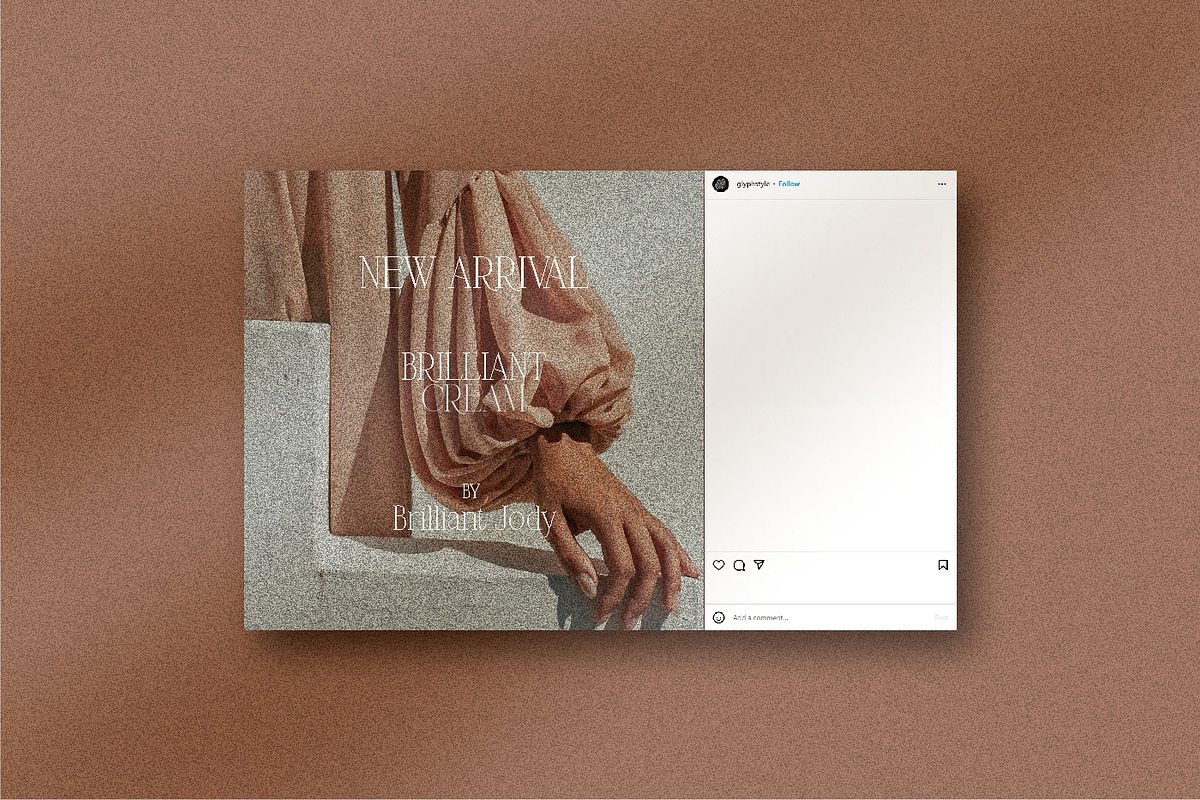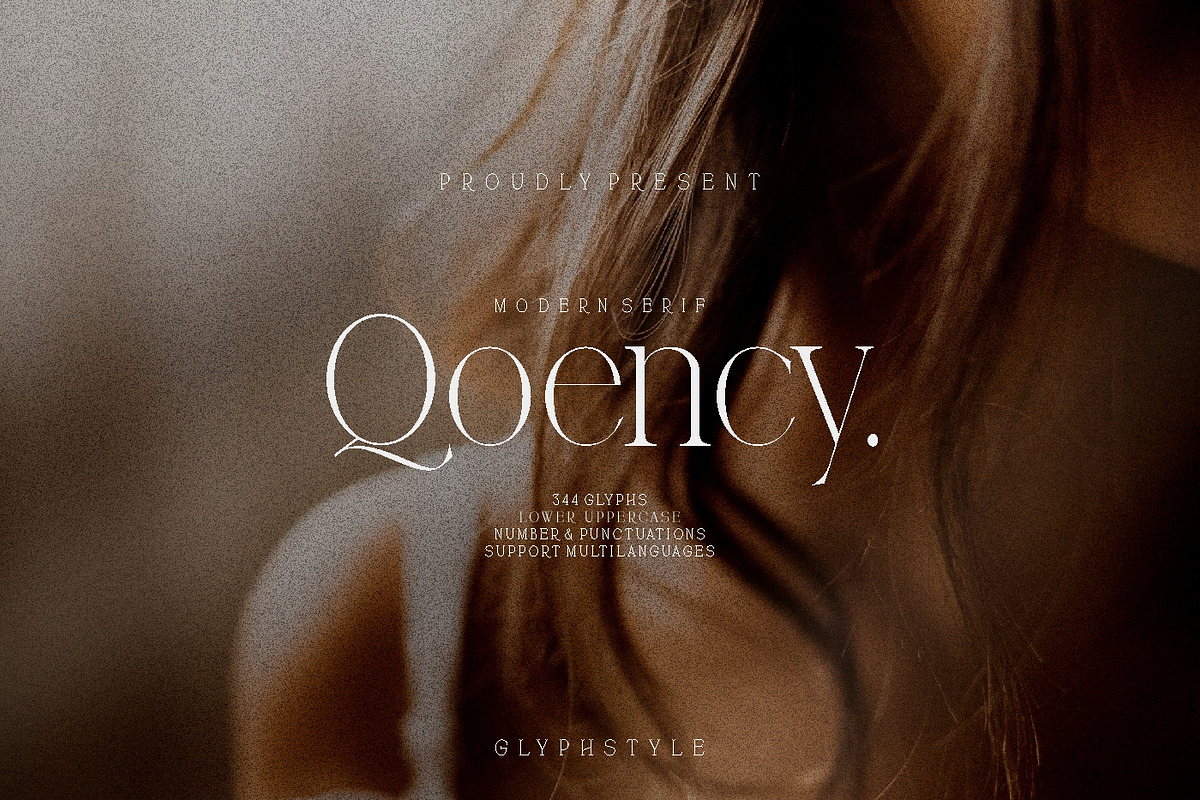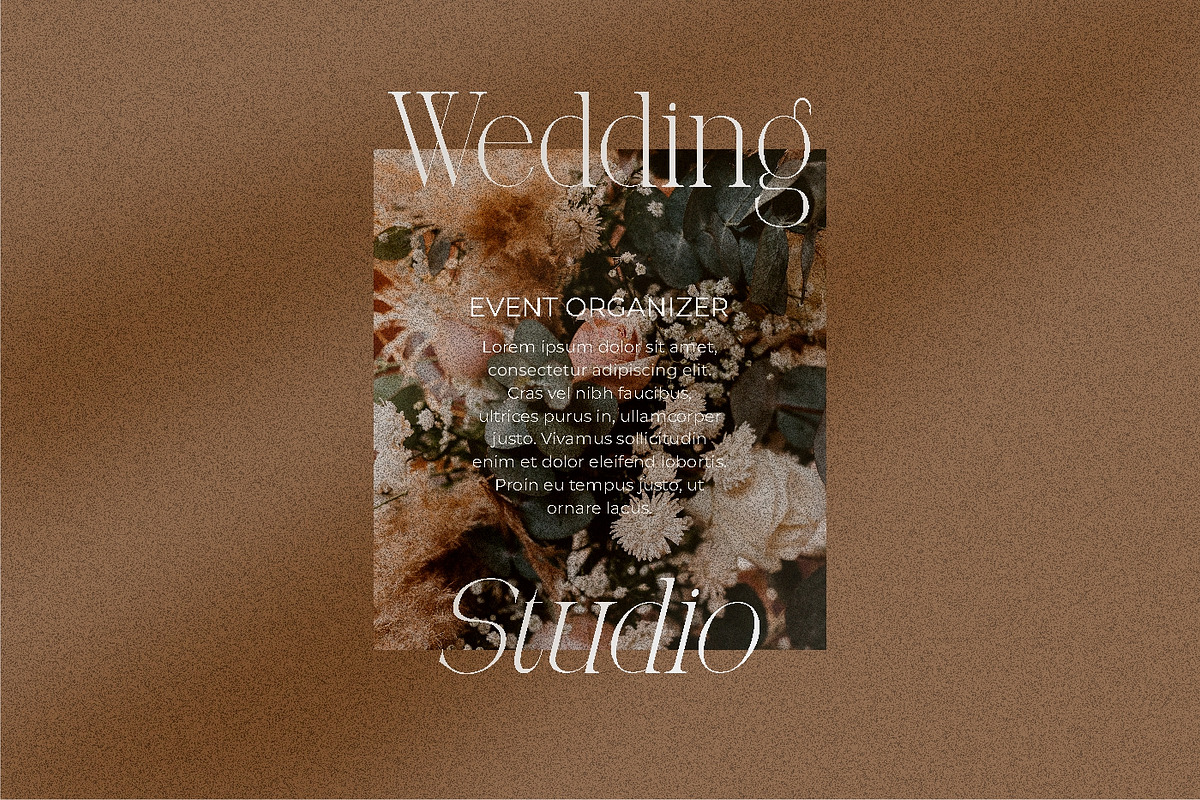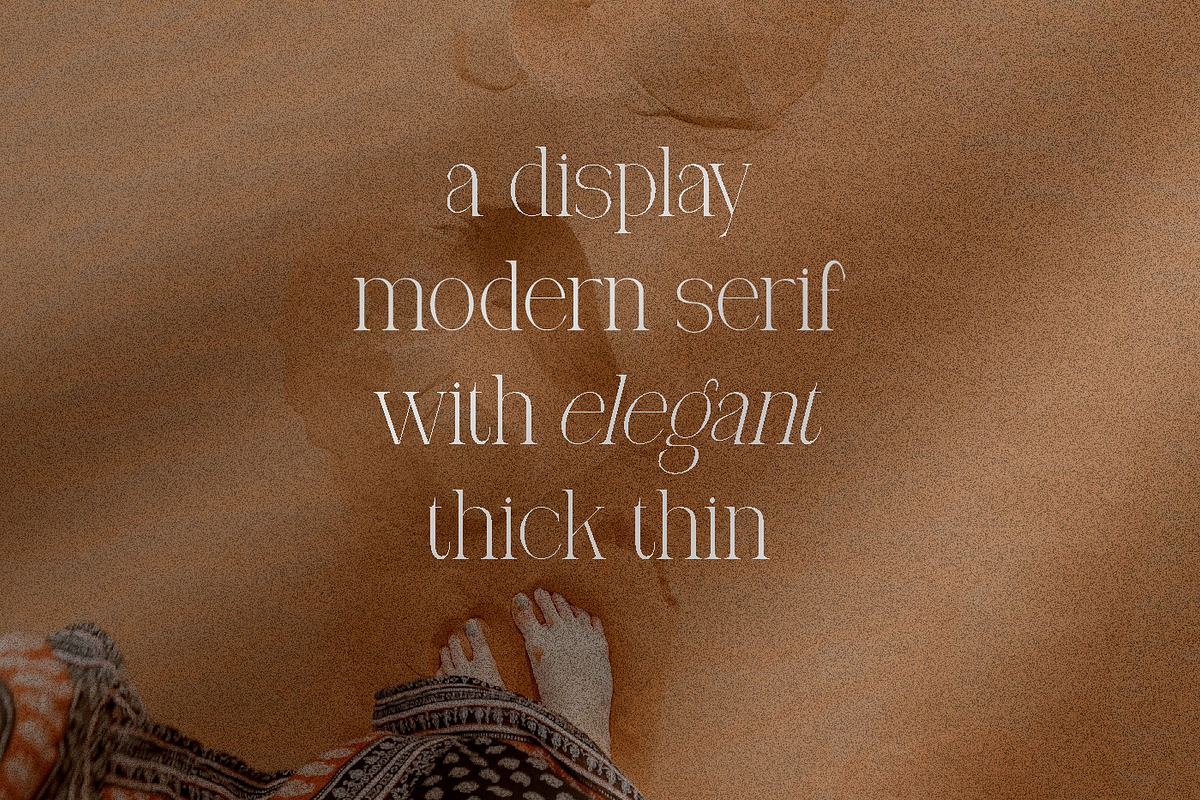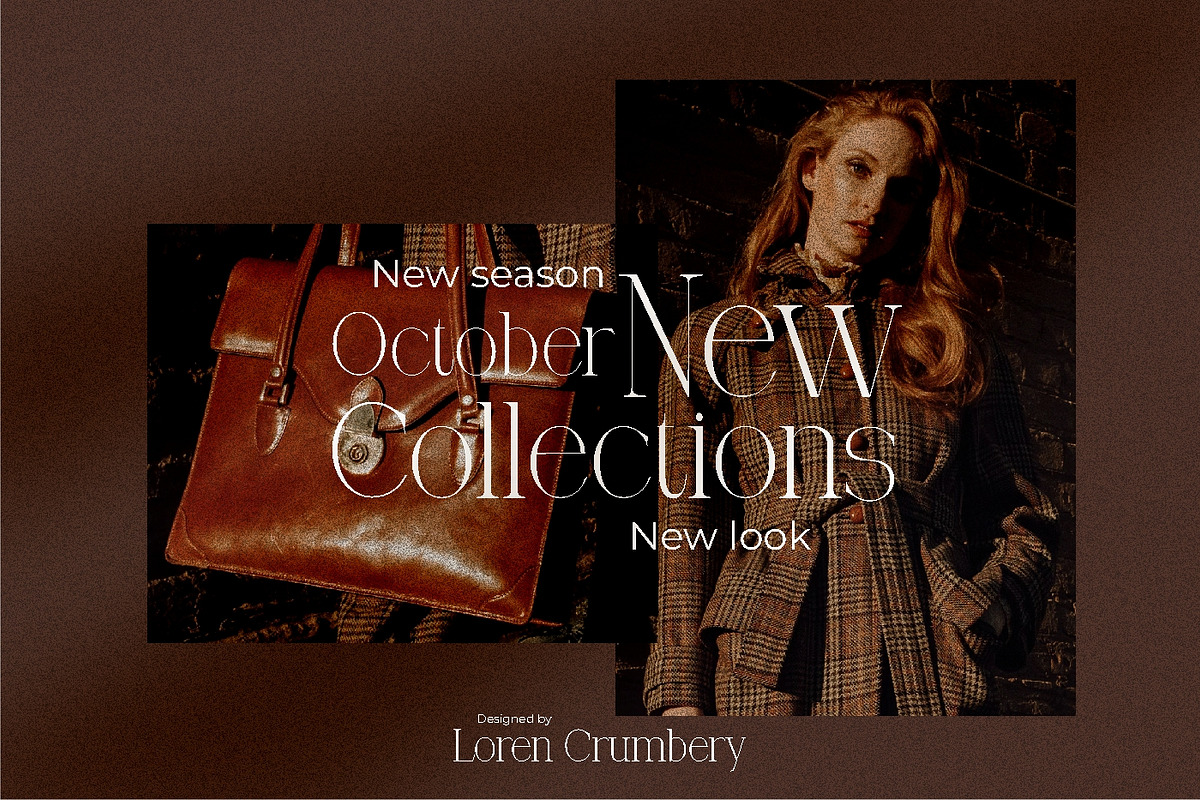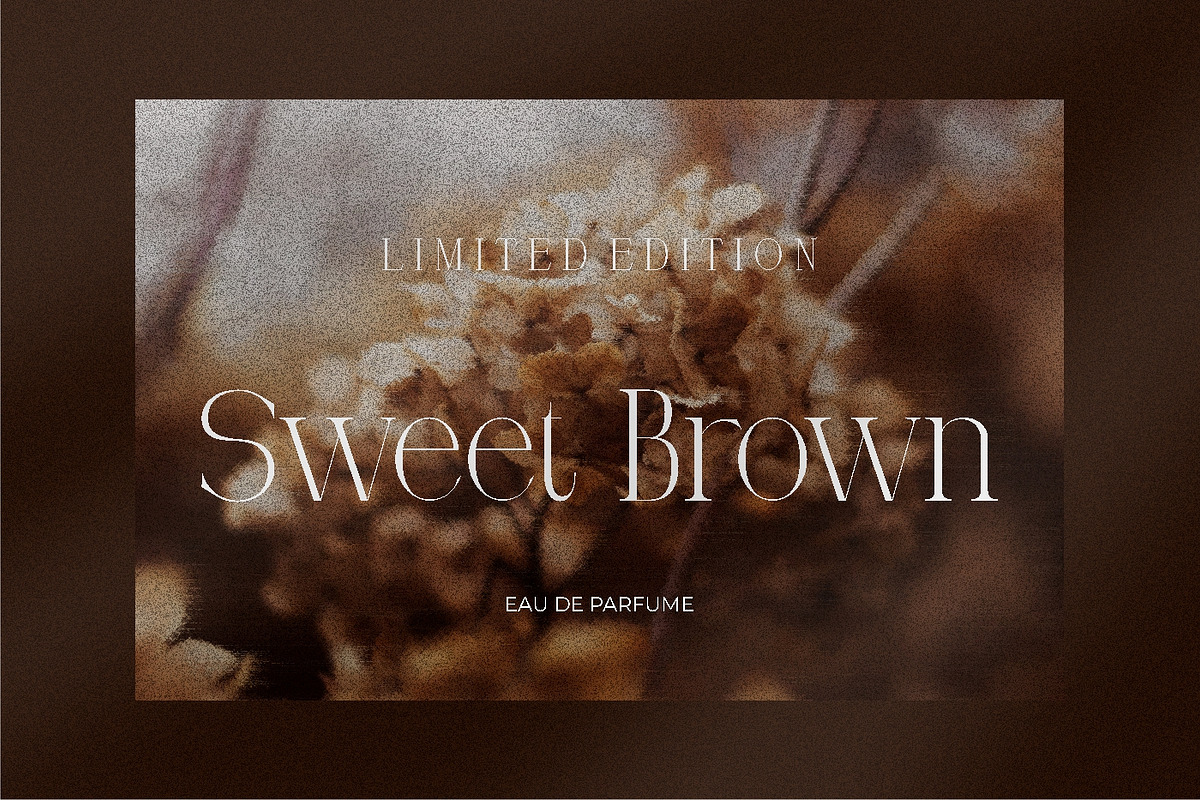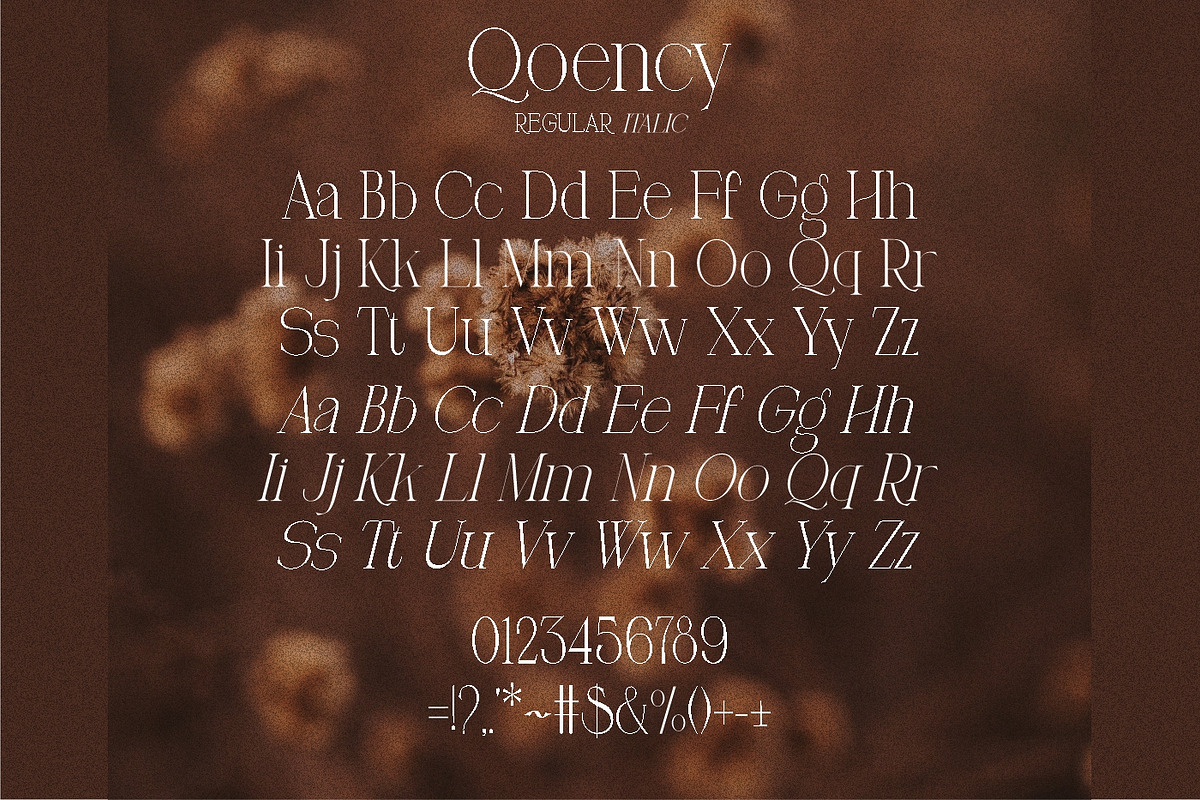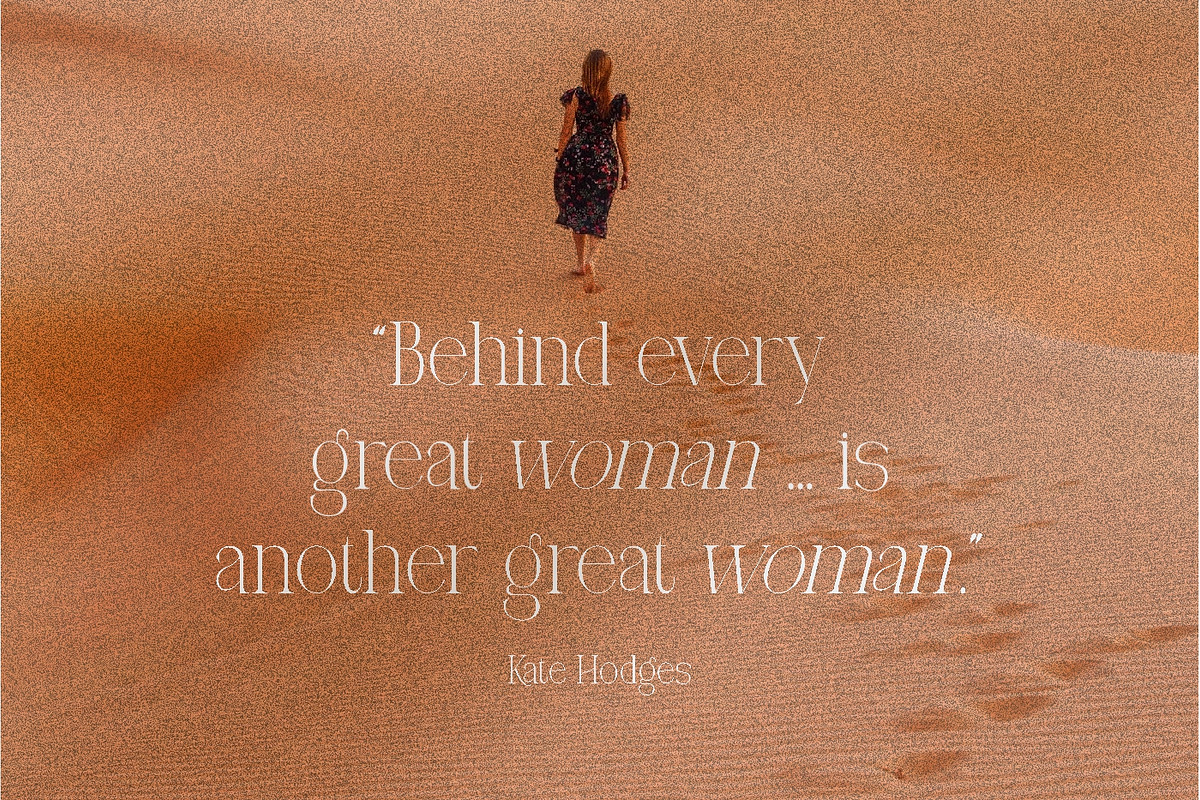
Qoency Modern Serif
Qoency is a modern serif font. With thick and thin letter shapes, this font looks modern and elegant. Regular and italic versions are available
Qoency is perfect for branding projects, logos, wedding designs, social media posts, advertisements, product packaging, product designs, labels, photography, watermarks, invitations, stationery, and any project that requires a modern serif font.
- Font feature
Uppercase, Lowercase, Numerals & Punctuations, multilanguage,